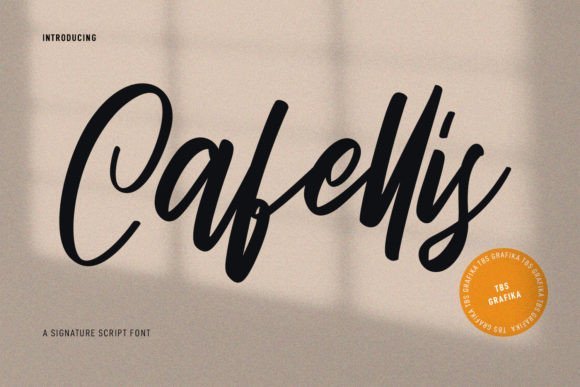
Discover the Elegance of Cafellis Font
Have you ever sat down at your desk, surrounded by blank pages and endless possibilities, and felt the urge to create something truly special? That’s exactly what happened to me the first time I laid eyes on the Cafellis Font. Its whimsical curves and flowing lines drew me in, and I knew I had to learn more.
The Cafellis Font is a masterfully designed handwritten script font that seamlessly blends classic calligraphy with modern flair. Whether you’re a seasoned designer or just starting out, this font is sure to elevate your projects and leave a lasting impression. Its versatility and sophistication make it a valuable addition to any design toolkit.
With the Cafellis Font, you’ll be able to add a touch of elegance and sophistication to your designs, from wedding invitations to branding materials. Its unique charm and character will set you apart from the crowd and make your work truly unforgettable.
Cafellis Font Key Features
- Font Style: A unique, handwritten font with a mix of cursive and brush script elements.
- Unique Characteristics: Features distinctive flourishes, swashes, and ligatures that add a touch of elegance and sophistication to any text.
Cafellis Font Review
I recently had the chance to work with the Cafellis font, and I must say it’s a unique and stylish addition to any design project. ✨ One of the things I like about this font is its elegant and sophisticated feel, which makes it perfect for high-end branding and luxury products. It’s also highly versatile, working well for both digital and print applications.
Another aspect of Cafellis that I appreciate is its extensive character set, which includes a wide range of languages and glyphs. This makes it an excellent choice for international projects or those requiring specific language support. ✨ The font’s clean lines and modern aesthetic also make it easy to pair with other fonts and design elements.
- ⚠️ The font can be a bit challenging to read at smaller font sizes, which may impact readability in certain contexts.
- ⚠️ Some users may find the font’s bold weights to be slightly uneven, which can affect the overall consistency of the design.
Overall, I’m impressed with the Cafellis font’s unique style and versatility. While it may have some limitations, it’s an excellent choice for designers looking to add a touch of sophistication and elegance to their projects. With proper usage and attention to detail, Cafellis can be a valuable addition to any design toolkit.
The Cafellis font is ideal for creating elegant and sophisticated designs, making it perfect for:
- Magazine and book covers
Alternatives to Cafellis Font for Designers
Lato is a sans-serif font that is highly versatile and suitable for a wide range of design projects. It is known for its clean and modern aesthetic, making it perfect for use in digital design, such as websites and mobile applications. Lato is more legible than Cafellis Font, especially at smaller font sizes.
Comparison: Lato Font is more modern and minimalist compared to the elegant, cursive feel of Cafellis Font.
Great Vibes is a script font that is ideal for use in creative and artistic projects. It features a fluid and elegant design that is reminiscent of handwritten text. Great Vibes Font is more suitable for use in advertising, branding, and editorial design, where a unique and eye-catching font is desired.
Comparison: Great Vibes Font is more elaborate and ornate compared to the simplicity of Cafellis Font.
3. Merriweather Font
Merriweather is a serif font that is highly legible and suitable for use in body text. It features a classic and timeless design that is perfect for use in print design, such as books and magazines. Merriweather Font is more formal and traditional compared to the modern feel of Cafellis Font.